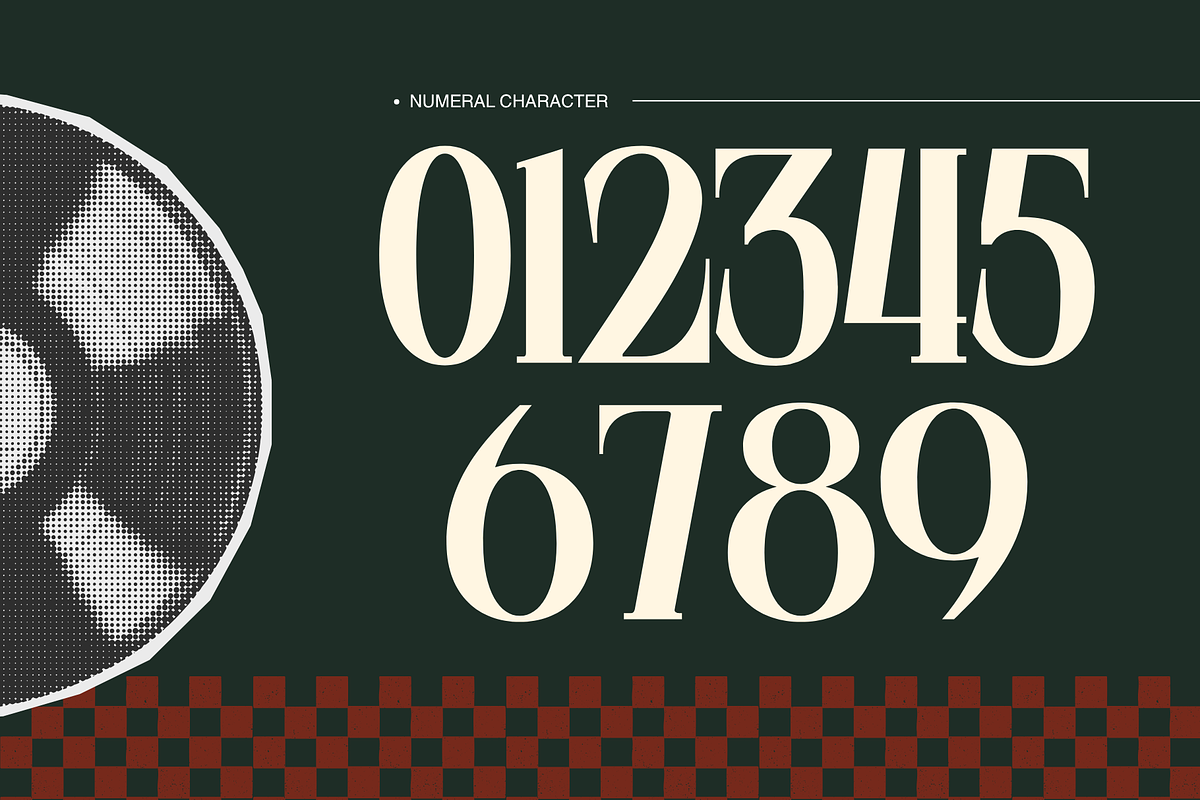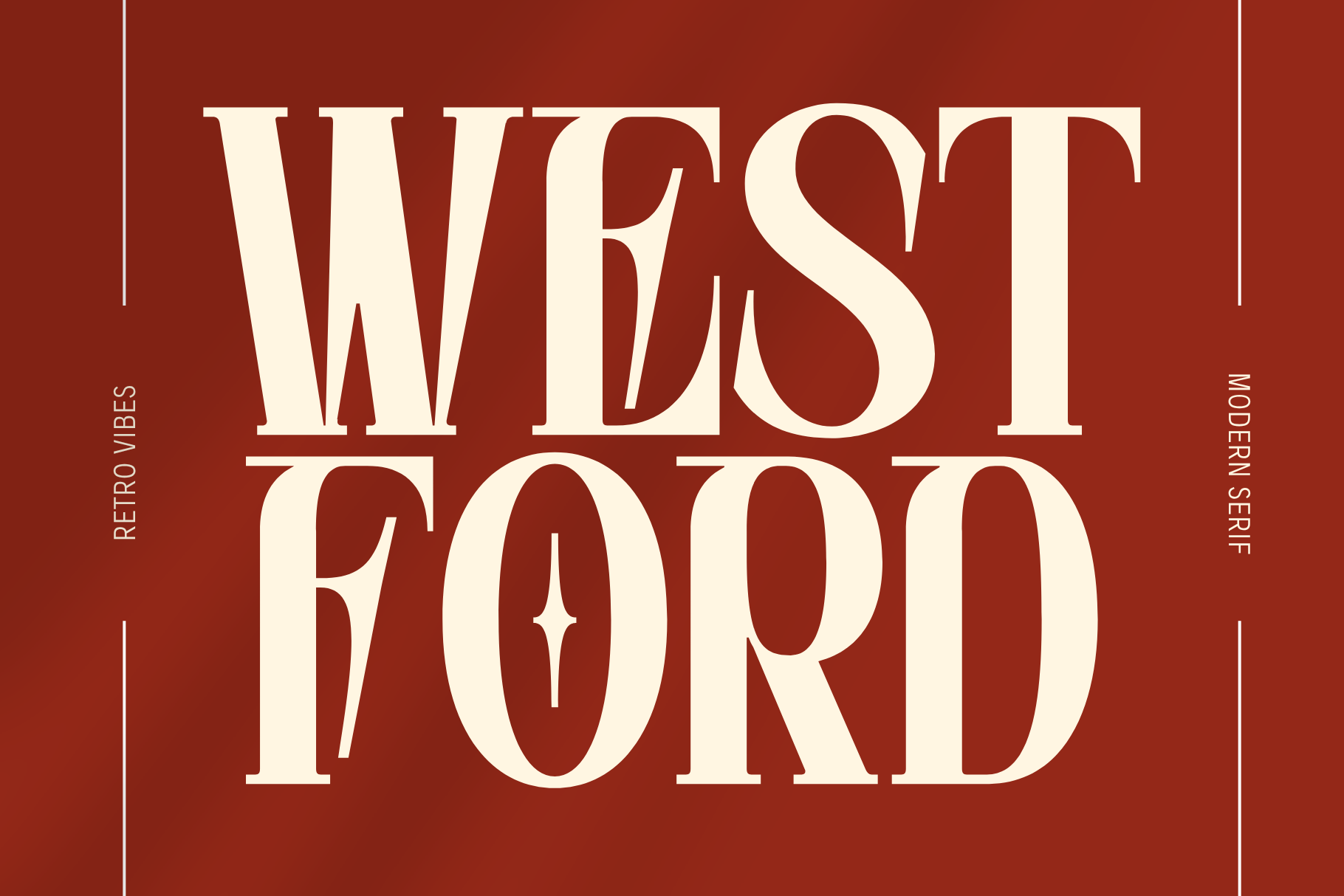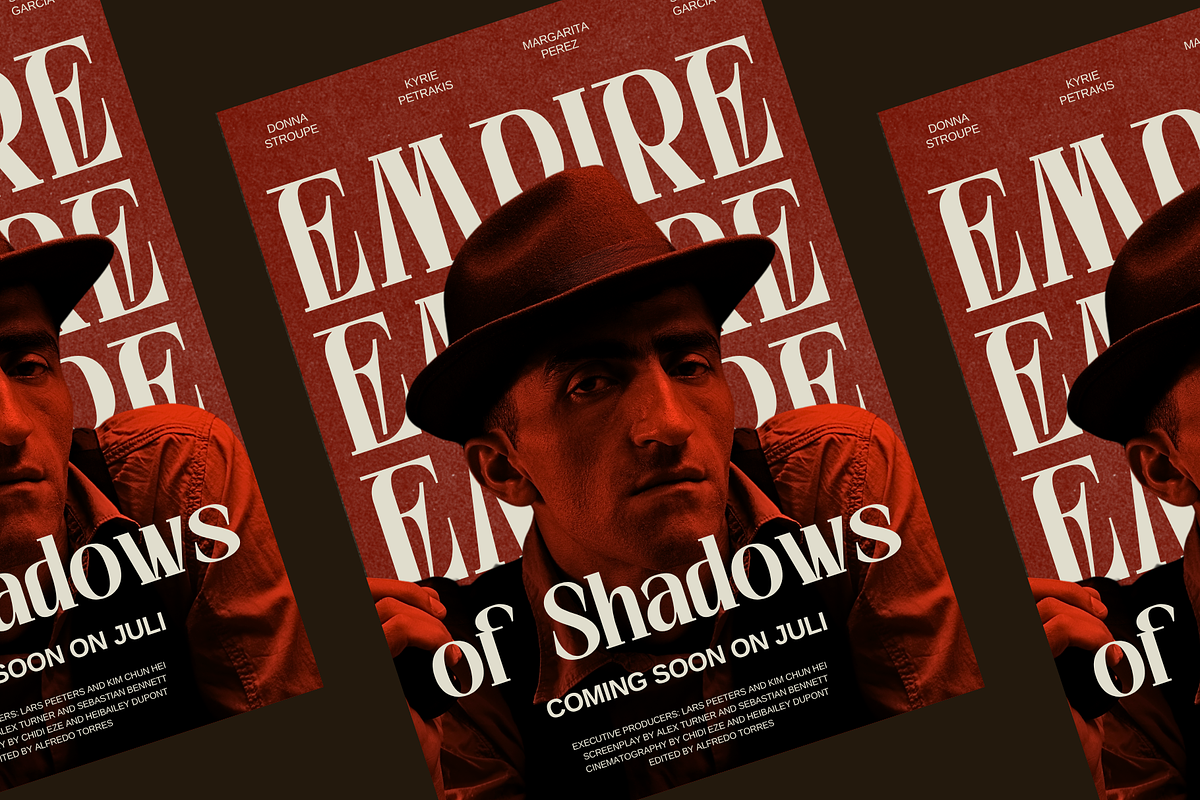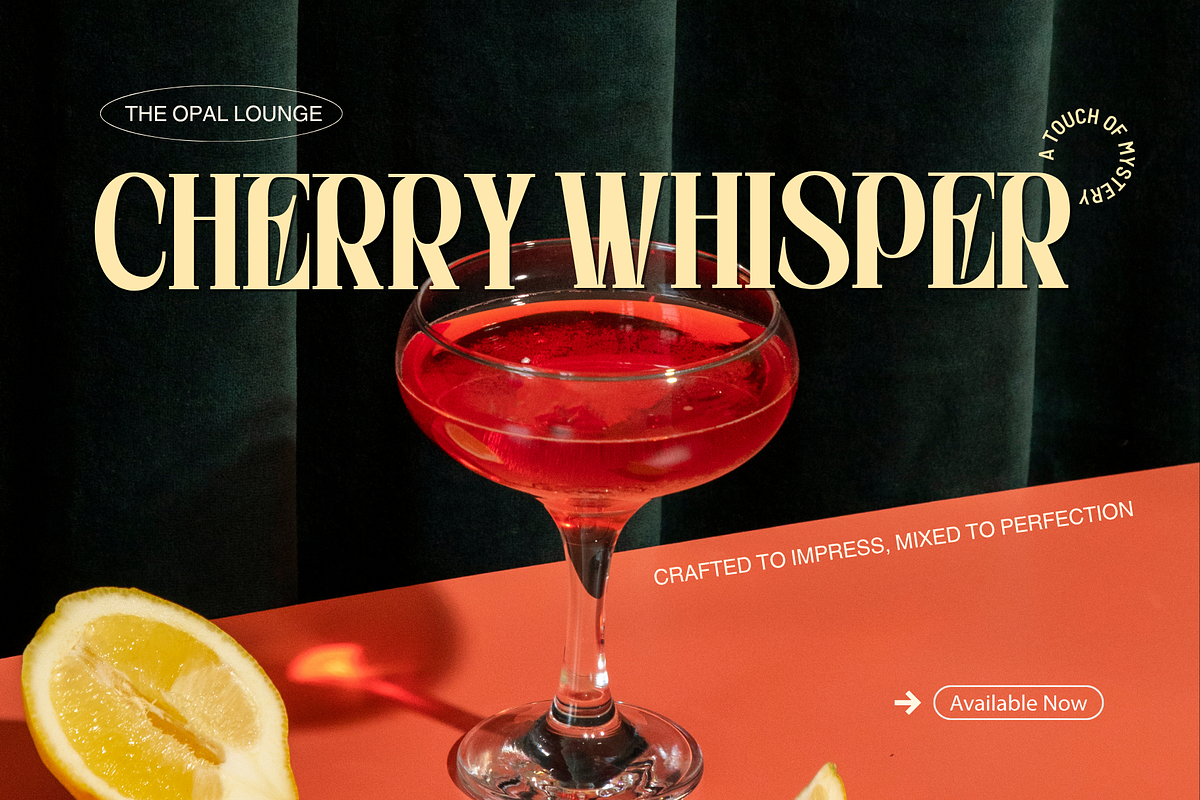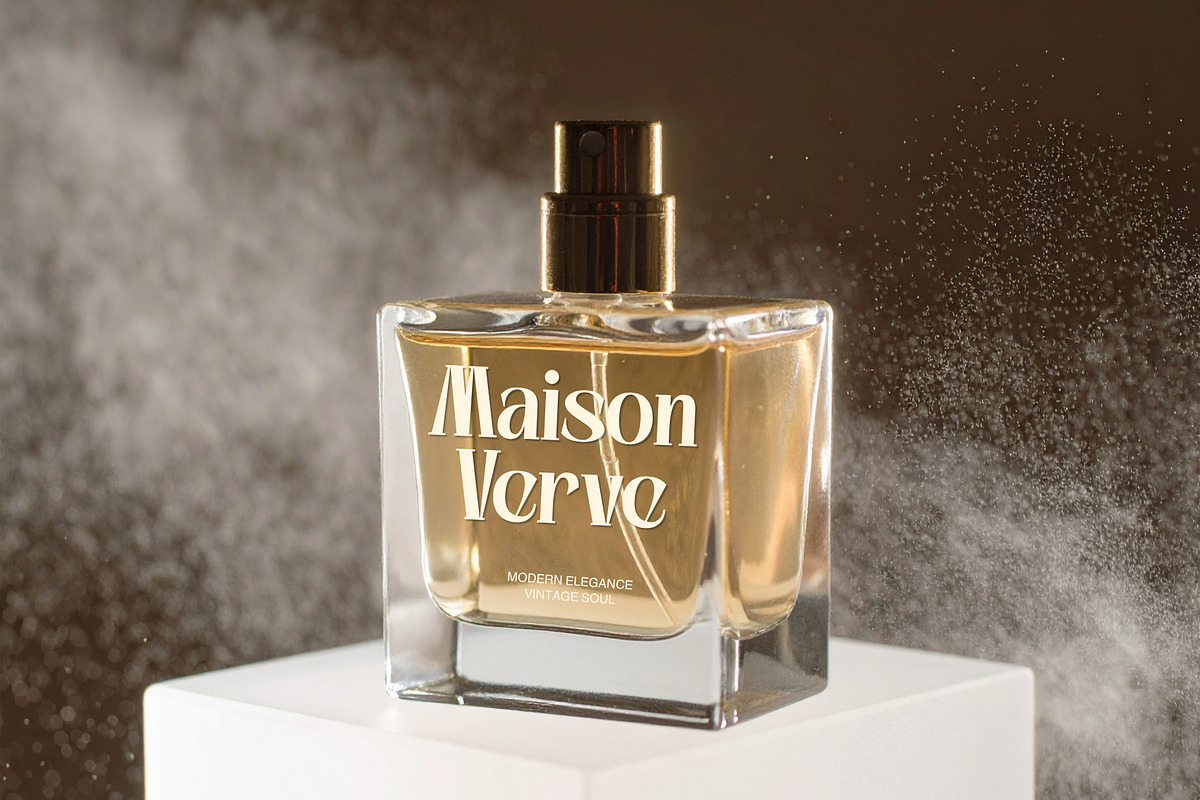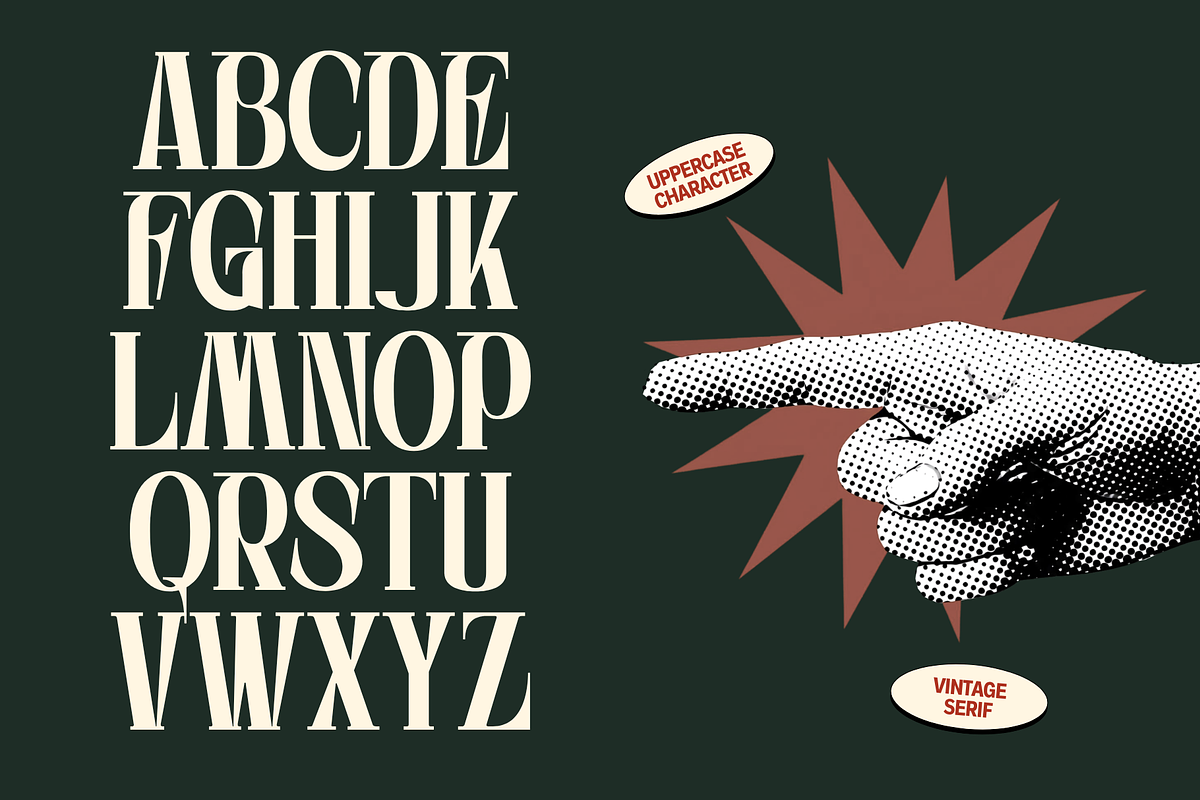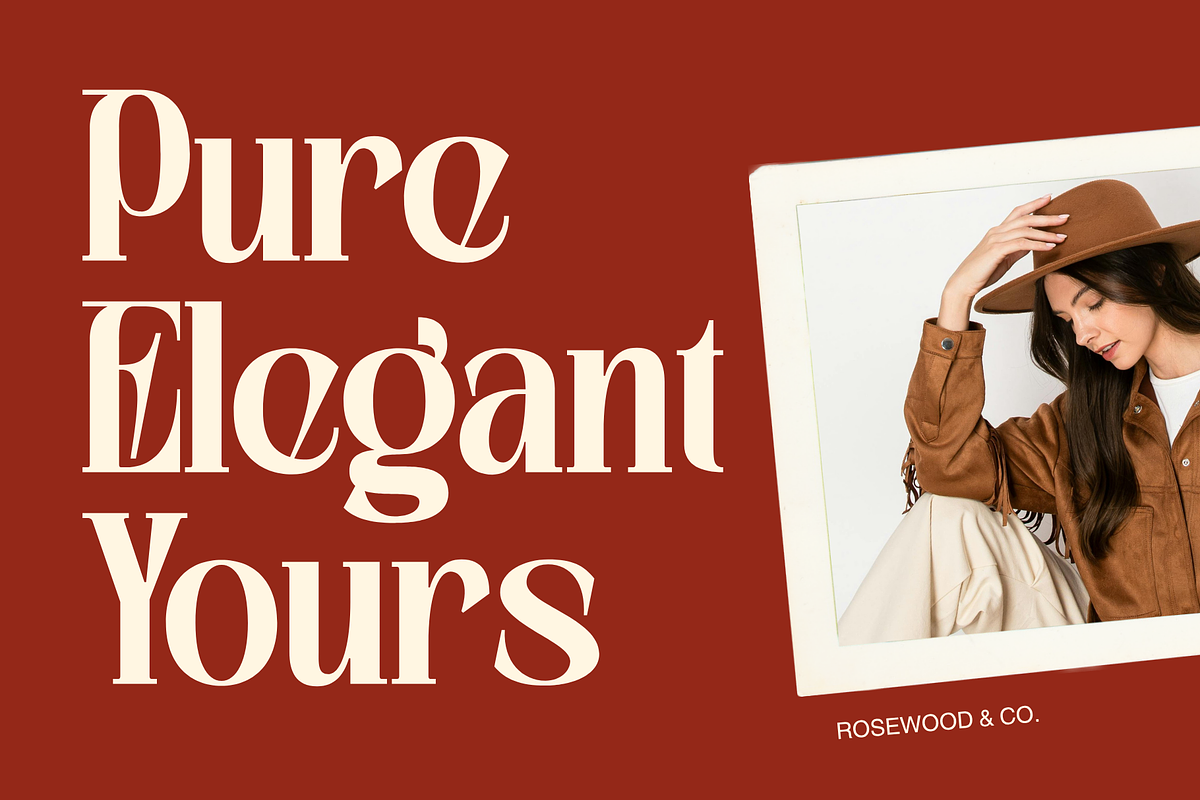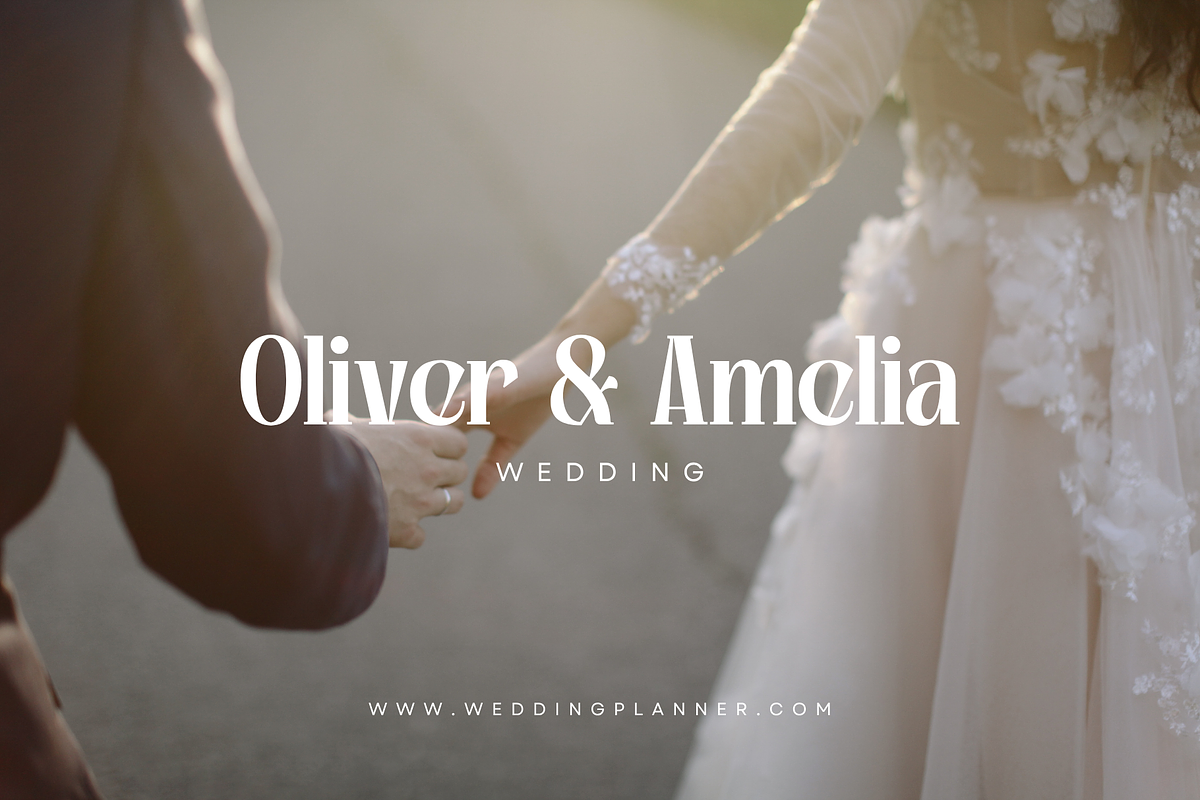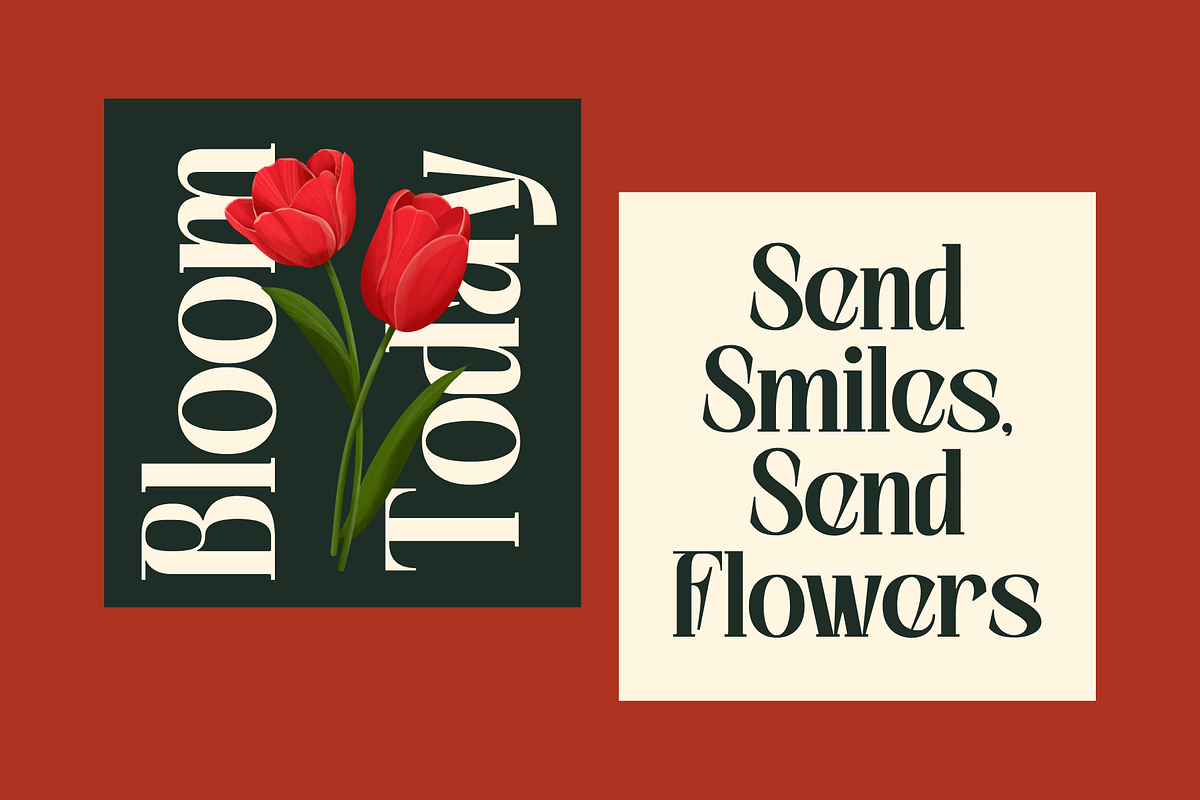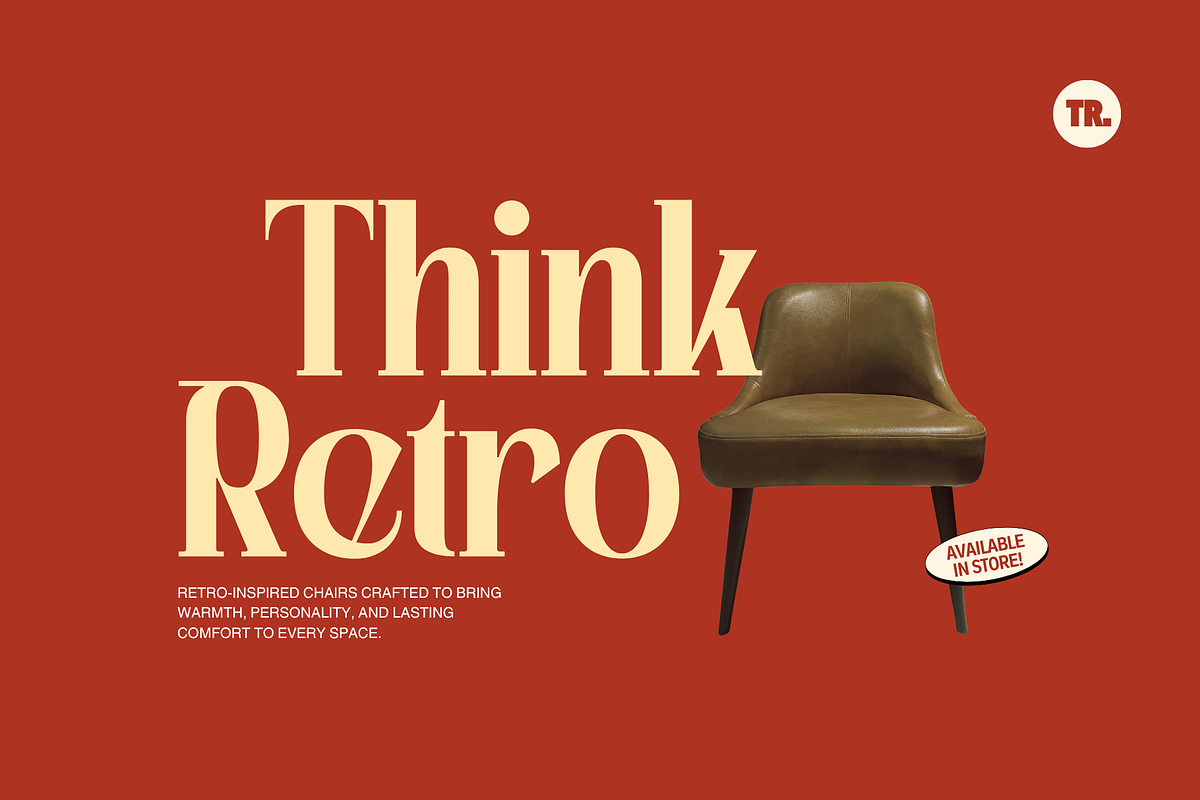
Westford - Modern Serif Logo Font
Say hello to Westford Font
Westford is a modern serif typeface that blends vintage charm with contemporary sophistication. Featuring elegant high-contrast letterforms, refined curves, and distinctive retro-inspired details, it is designed to create bold and memorable visual identities. Perfect for logos, branding, fashion labels, packaging, editorials, luxury products, poster film, hotel logo, wedding and promotional materials. Westford delivers a timeless aesthetic that combines classic heritage with modern style, making every design feel confident, premium, and effortlessly distinctive.